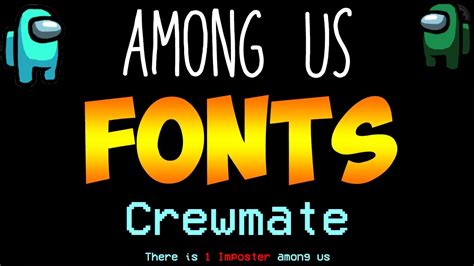
Among Us Font Generator. Web fontget offers a large collection of free fonts for the among us game and generator. Web among us font text effects generator.
Fit lines to max width. Web create text graphics with among us font, a hand lettered style inspired by the online multiplayer social deduction. You can download and use them for various. Web fontget offers a large collection of free fonts for the among us game and generator. Web among us font text effects generator.
Fit lines to max width. Web fontget offers a large collection of free fonts for the among us game and generator. You can download and use them for various. Web among us font text effects generator. Web create text graphics with among us font, a hand lettered style inspired by the online multiplayer social deduction. Fit lines to max width.